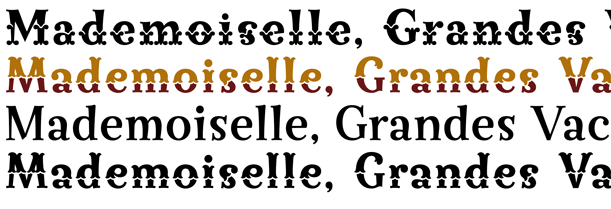
Mademoiselle, Grandes Vacances & Homemade Text
This woodtype is the one of the most unique Wild West, Tuscan type. No other woodtype or Tuscan decorative is more cute and sweeter than this family. Homemade Text font is ready for use in conjunction with this family.